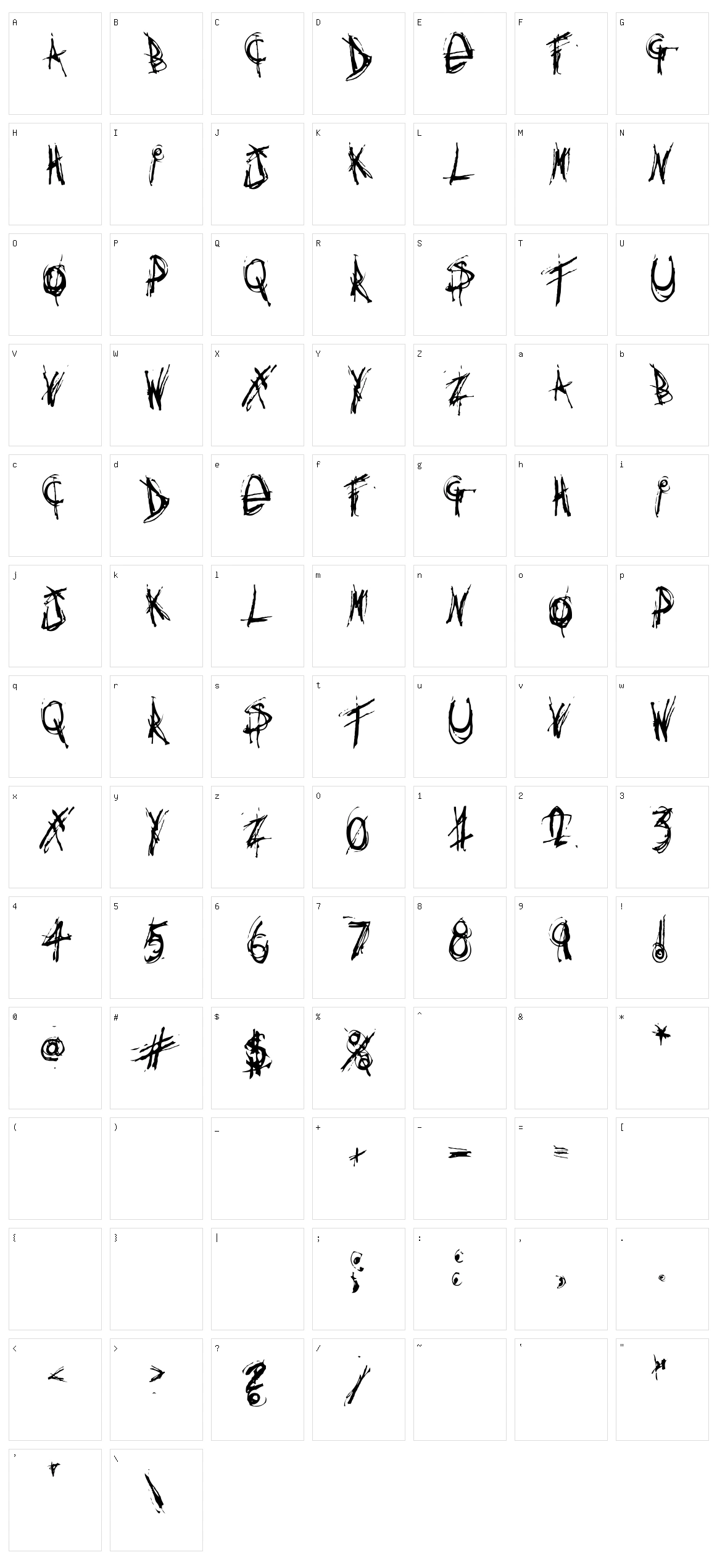
Anything you want
Designed by: Alex C.
Category: Trash
This font was created from scratch by Alex C.
- drawn or created with a paint package.
- scanned if not already on disk.
- chopped and saved.
- put into FCP and refined.
In total this usually takes about 2 or 3 hours.
- Anything You Want - A very grungy, graffiti font with attitude!